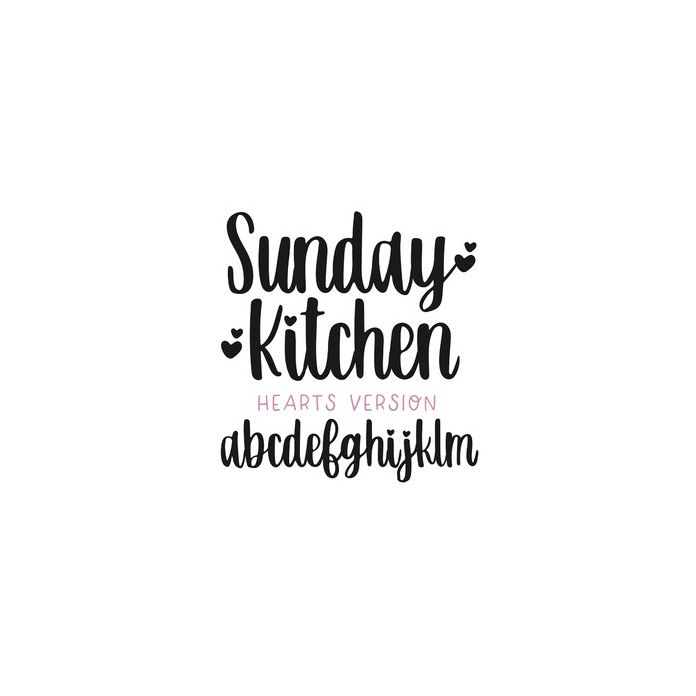
BFC Sunday Kitchen Valentine's Day Version Cursive Font
Sunday Kitchen Hearts Version is a beautiful script font with hearts, Use the * key for the hearts symbol.